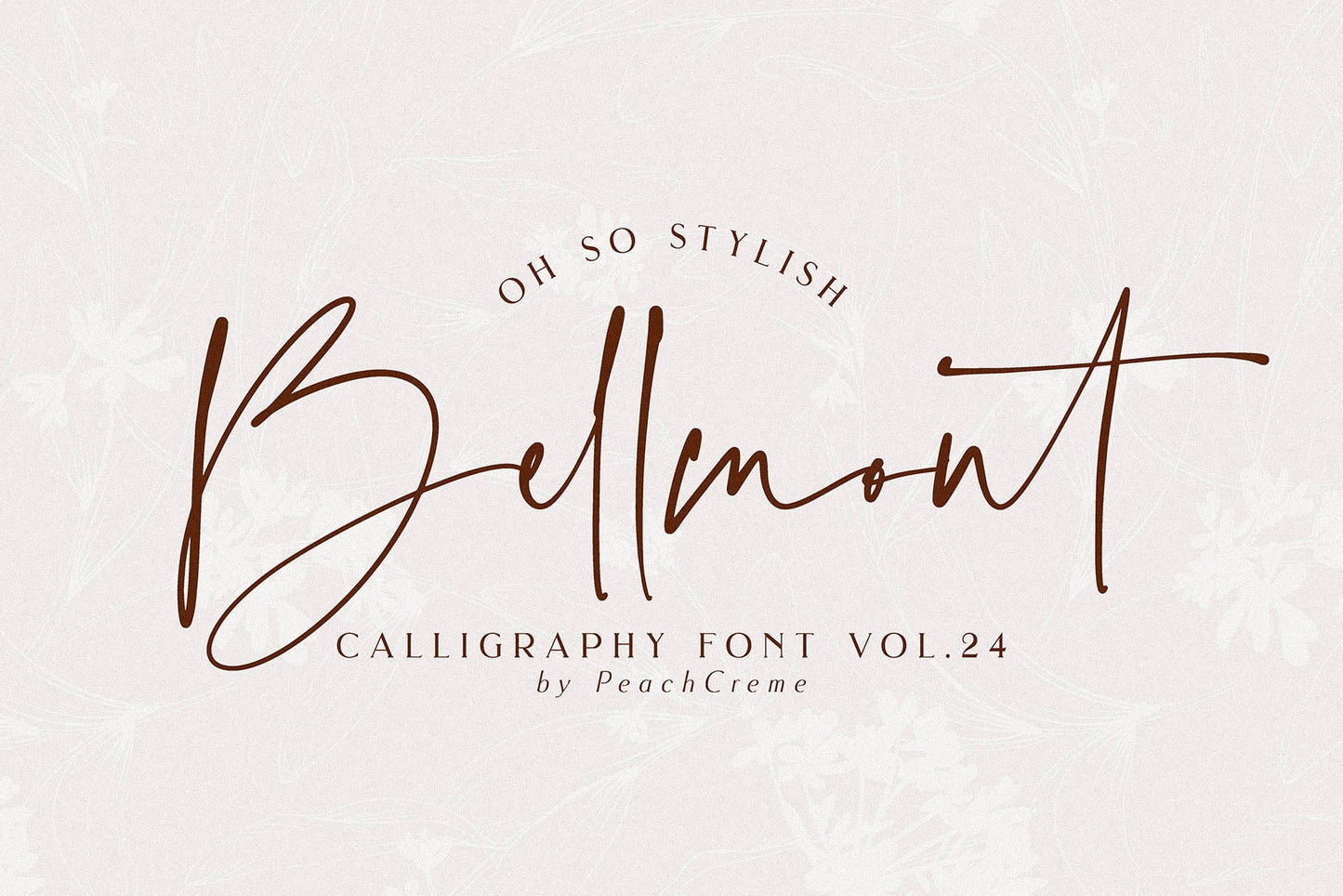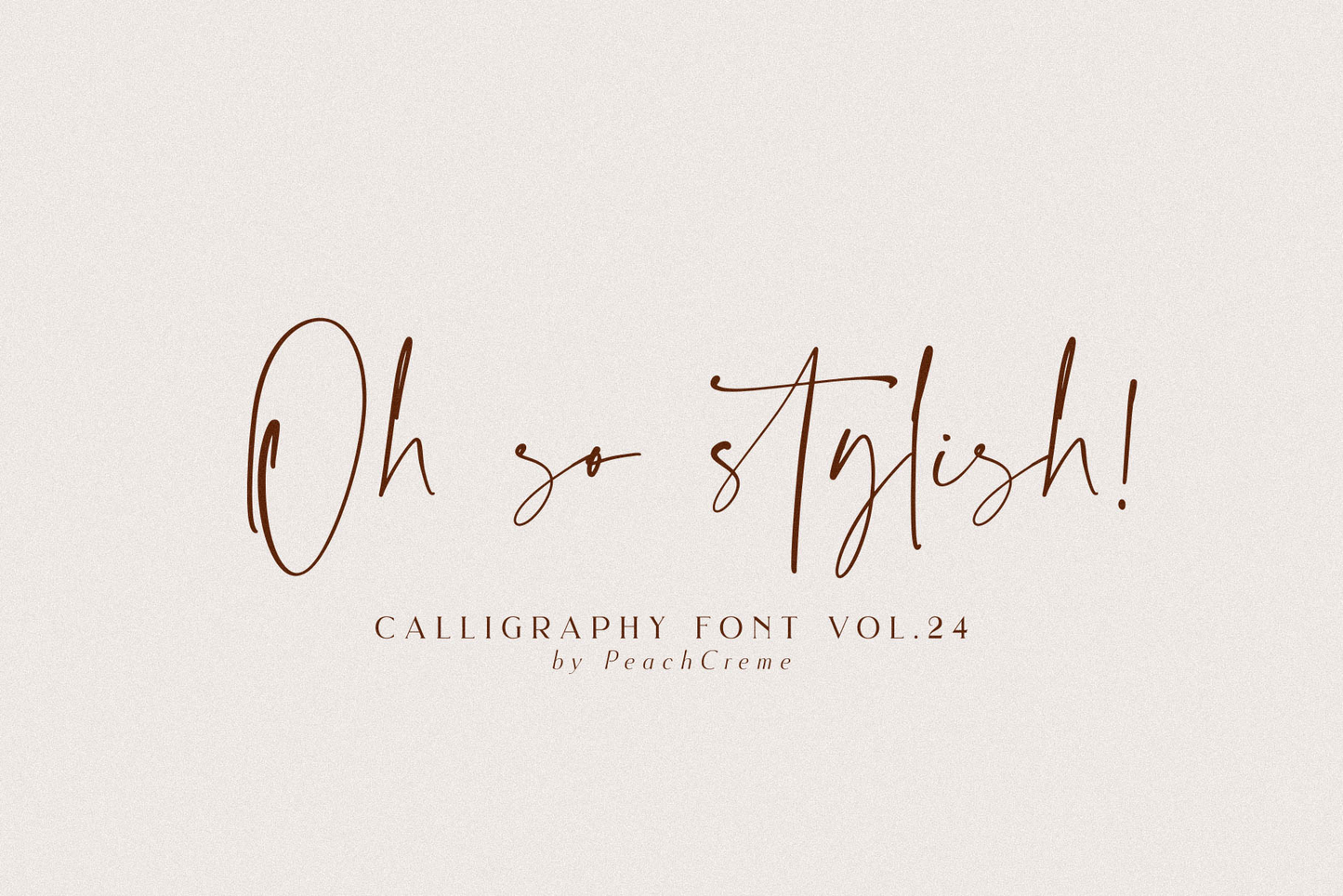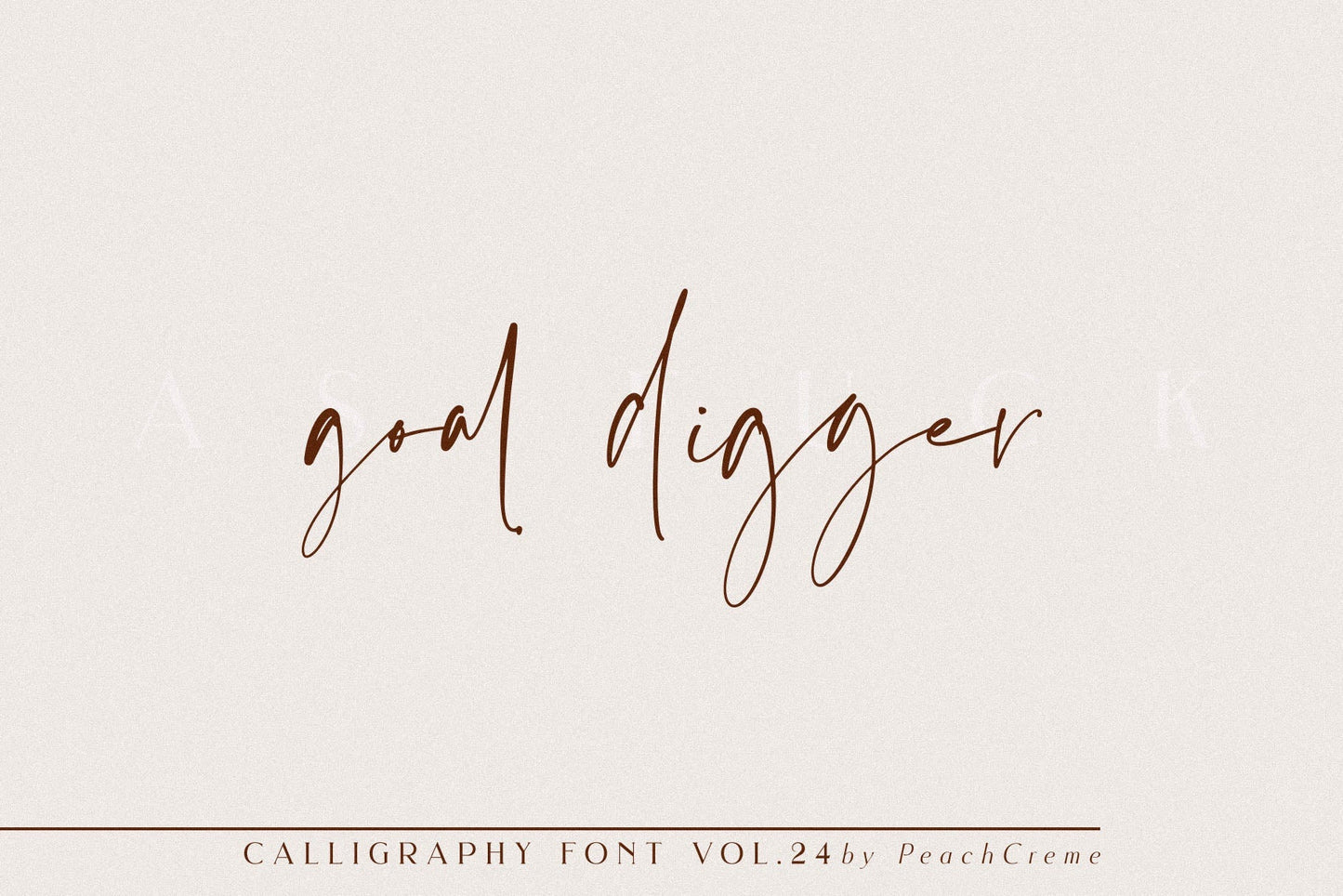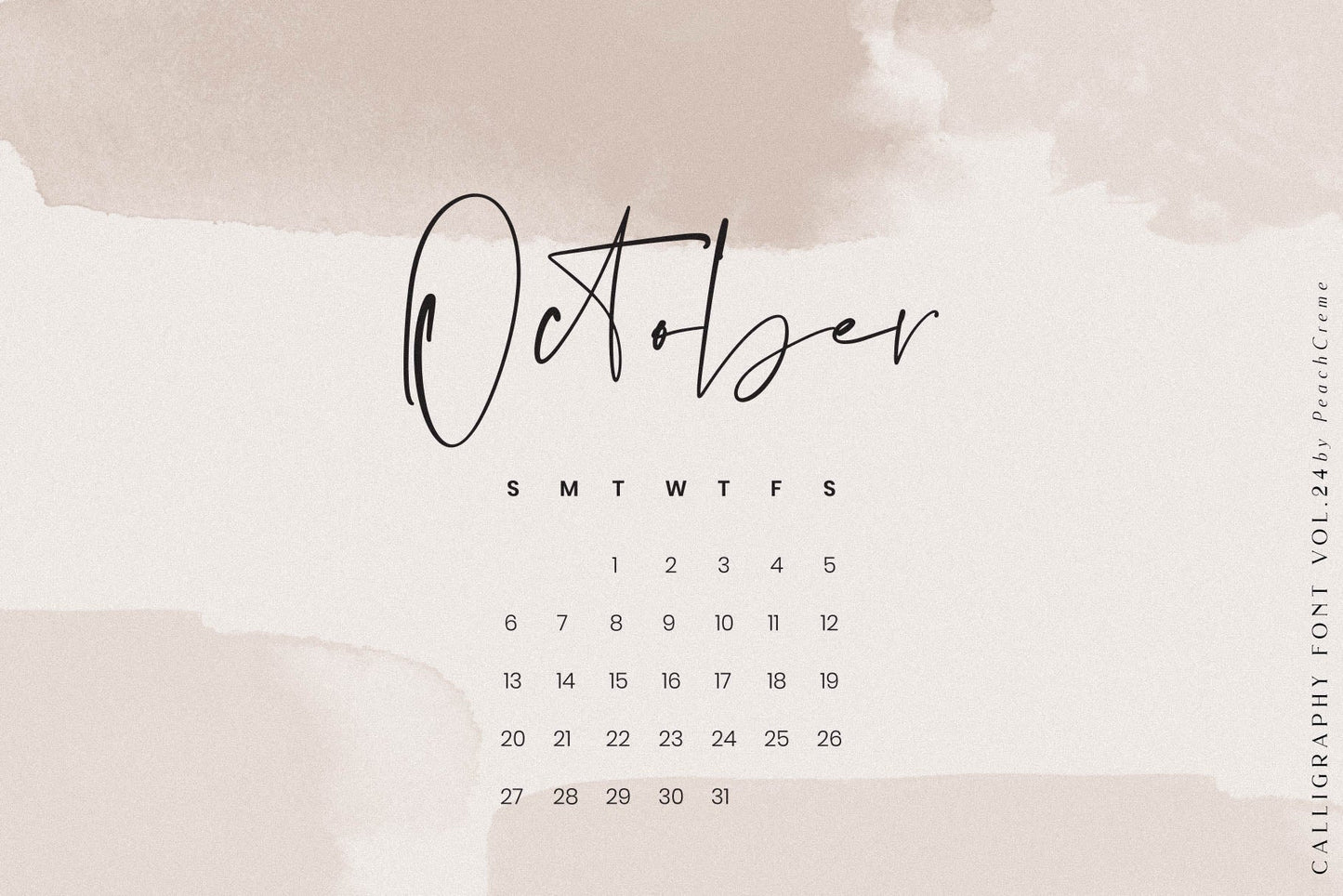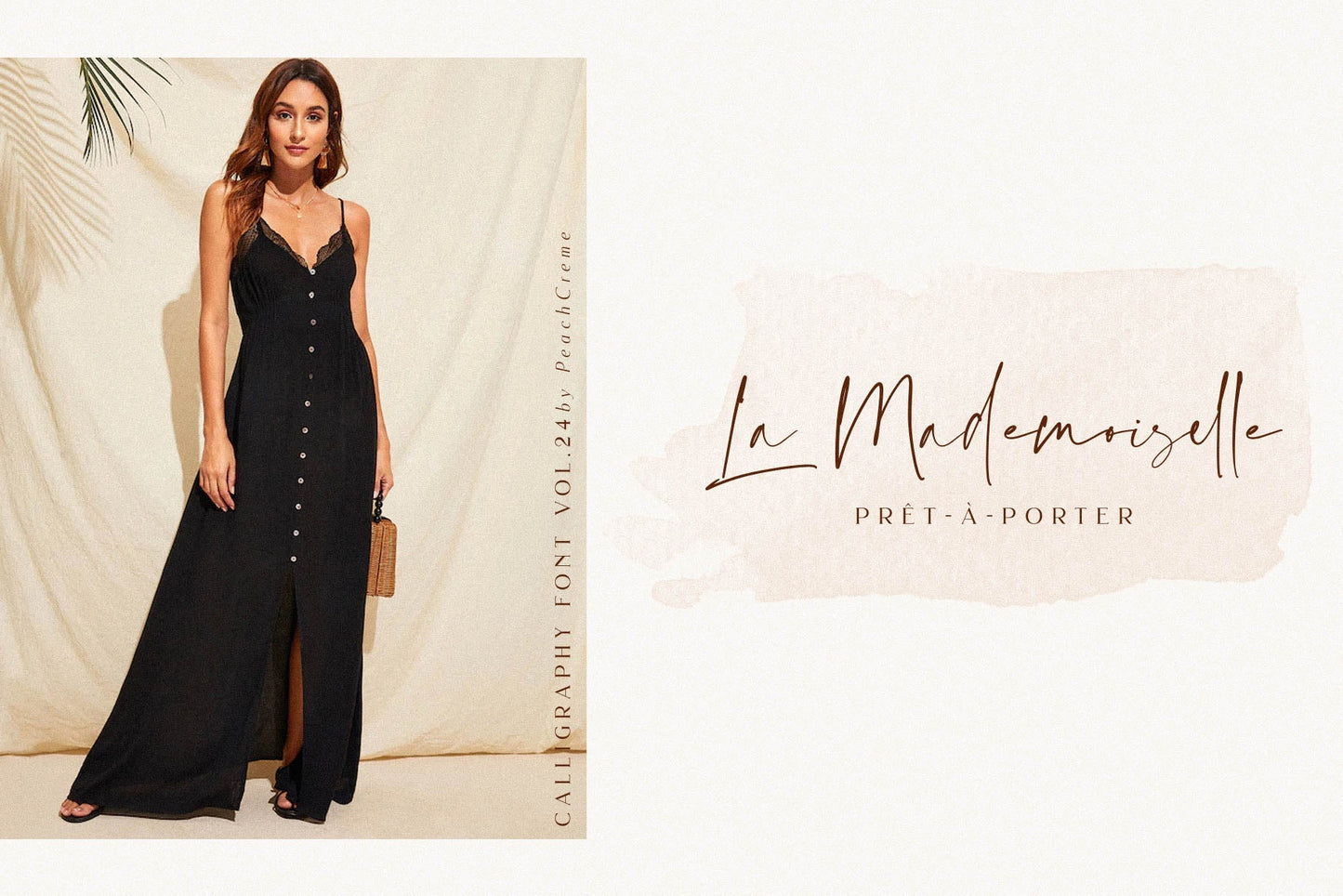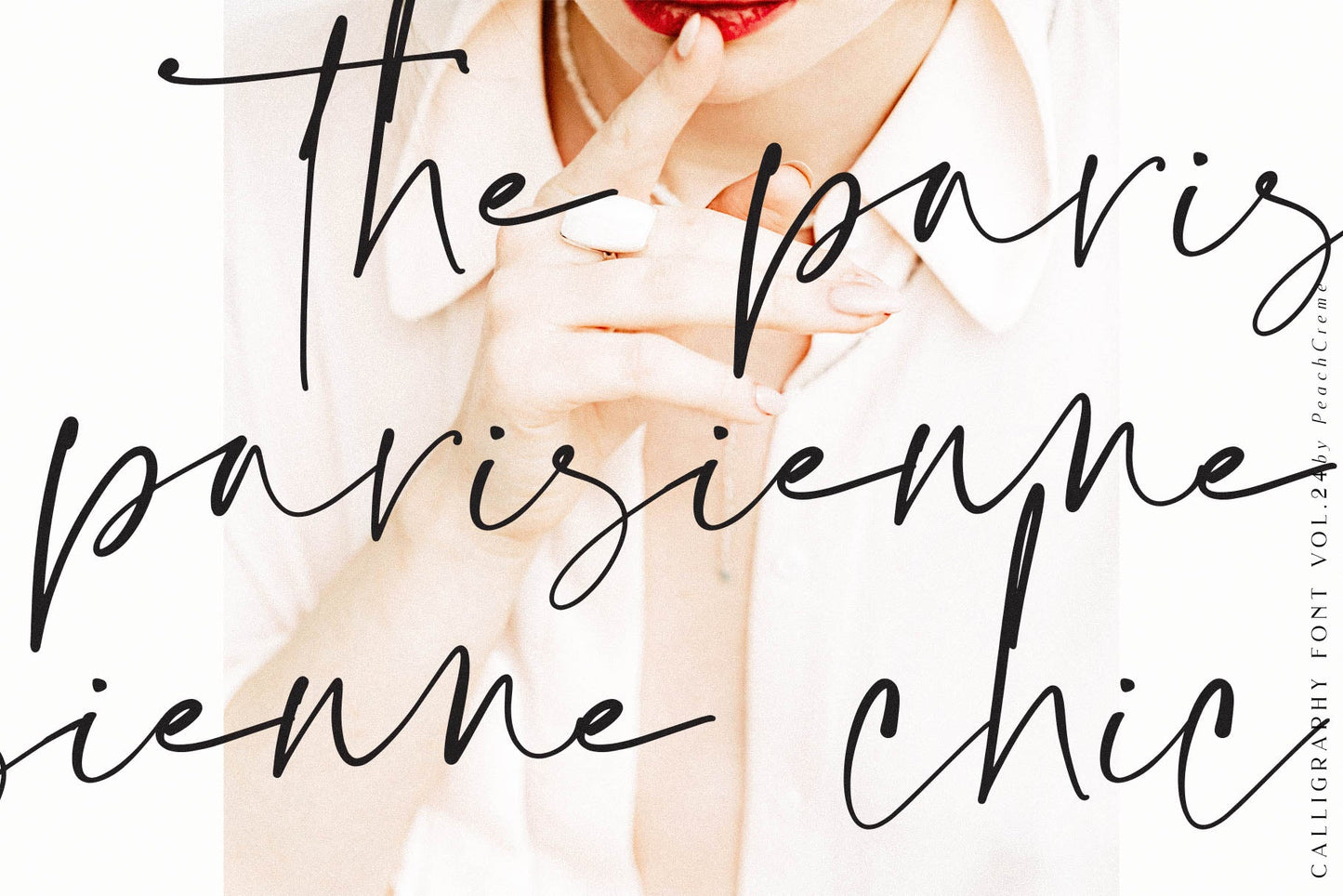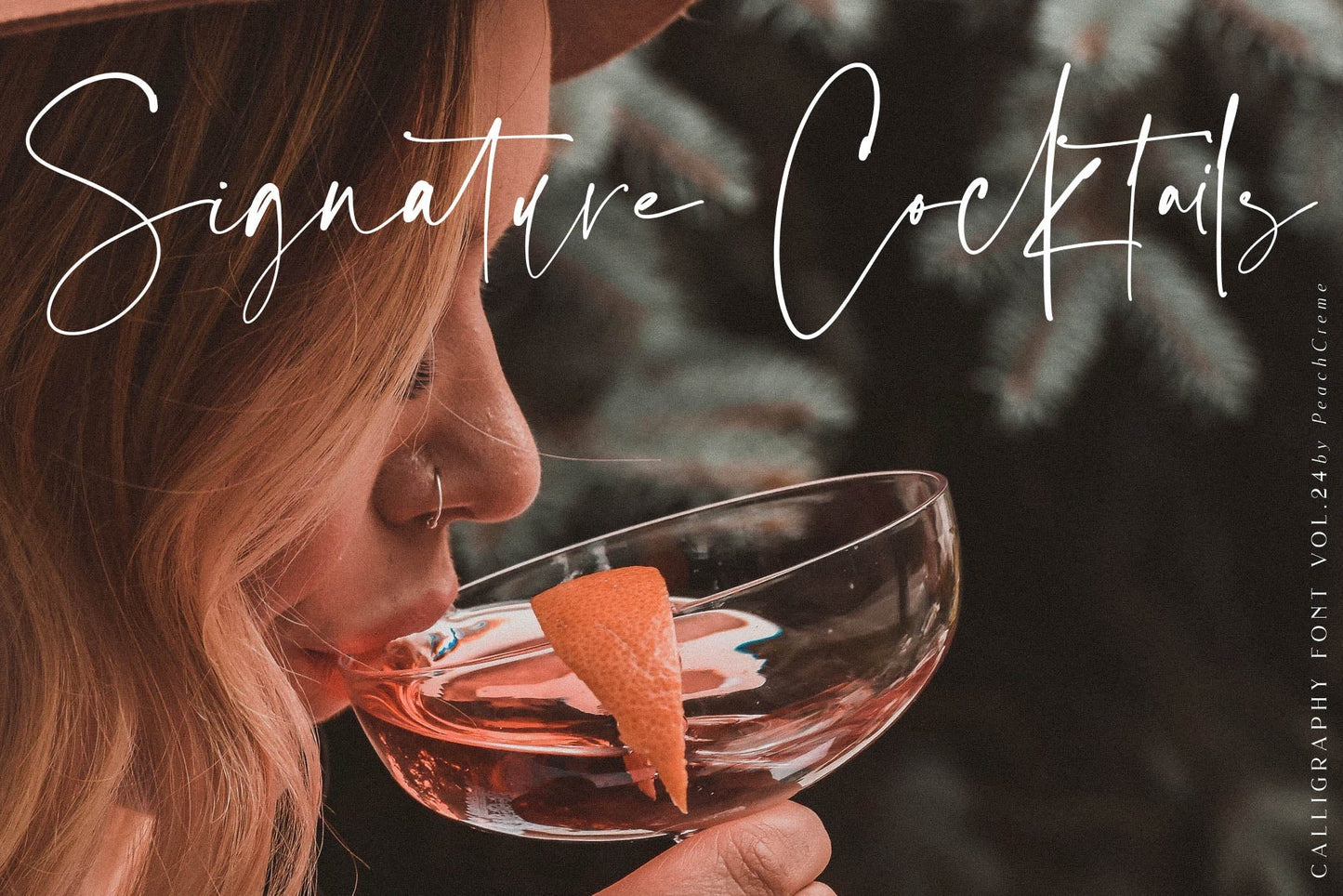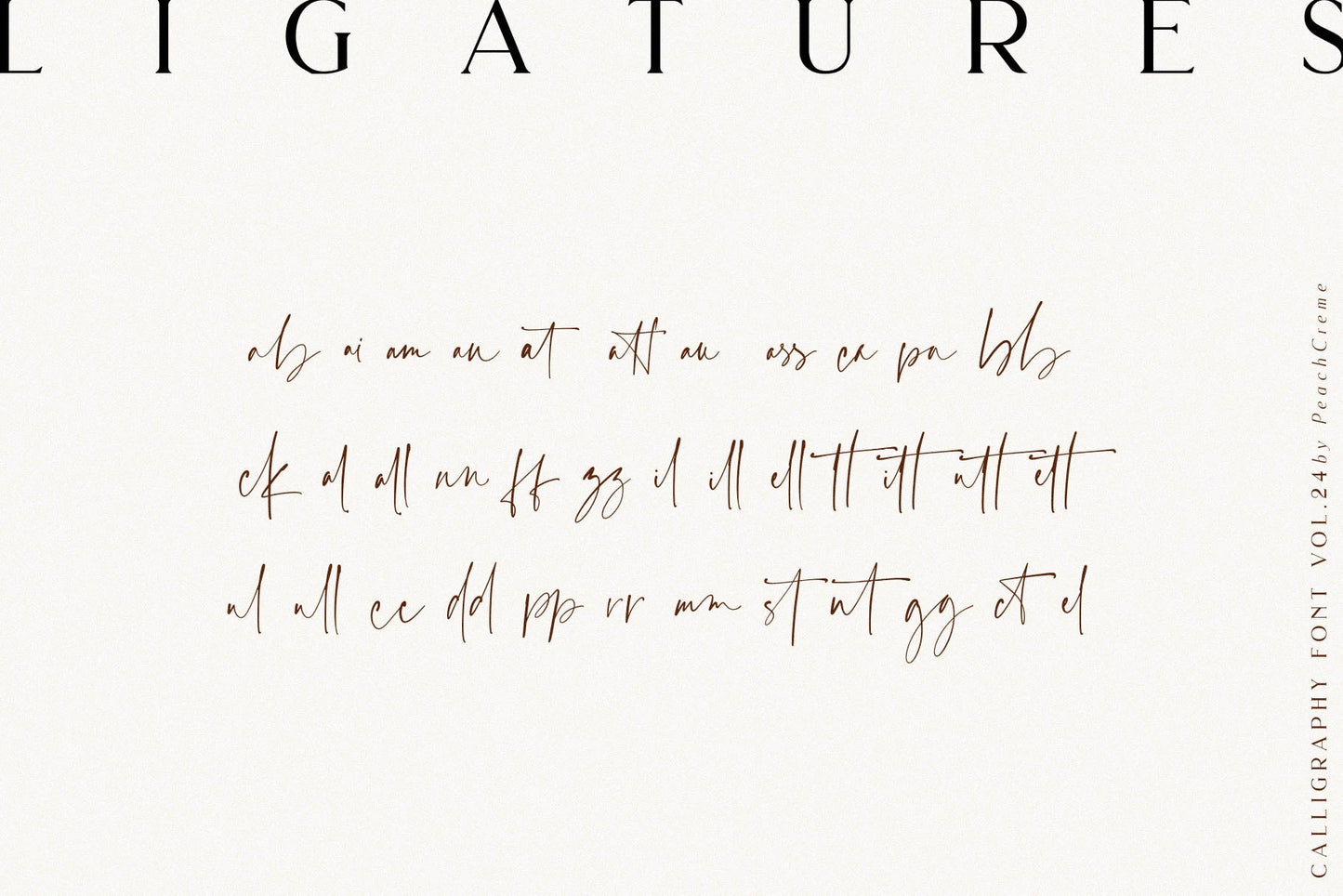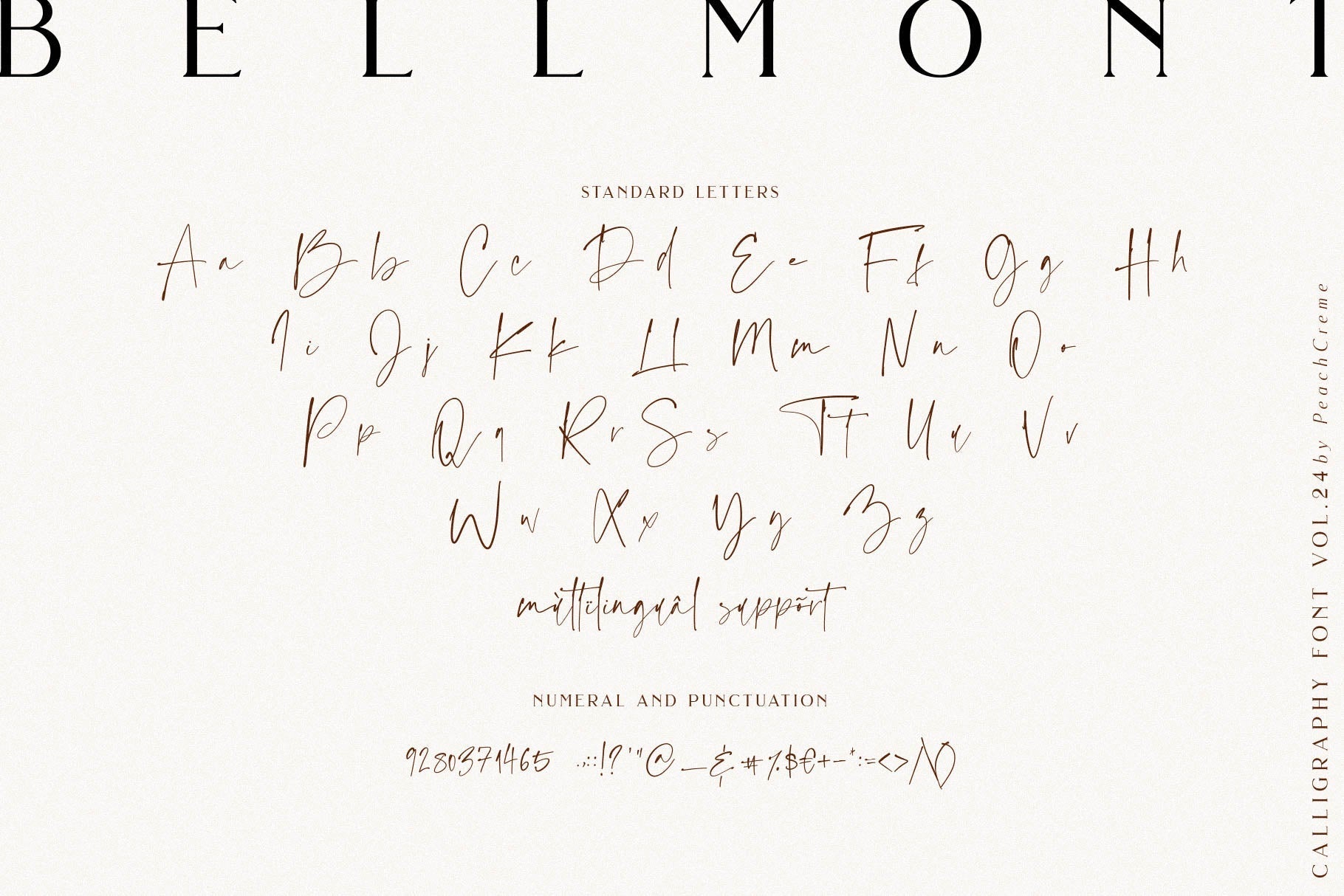
Bellmont Font
LUXURY FINE ART TYPOGRAPHY VOL.24
Bellmont. Inspired by fashion. Bellmont combines stylish letter shapes with contemporary twist.
It includes full set of elegant uppercase and lowercase letters, multilingual symbols, numerals, punctuation. The font has smooth wet ink texture, so would be perfect for all types of printing techniques+you can do embroidery, laser cut, gold foil etc.